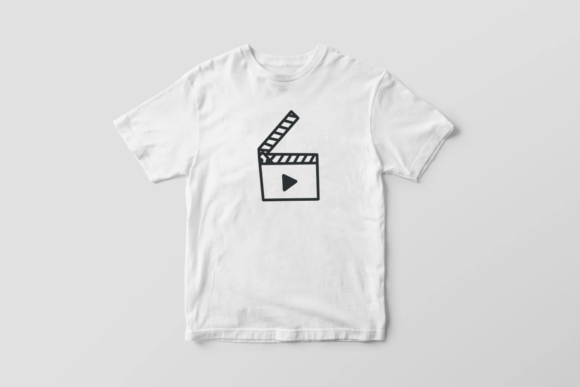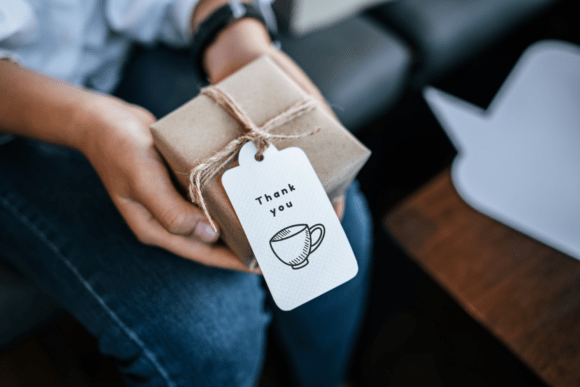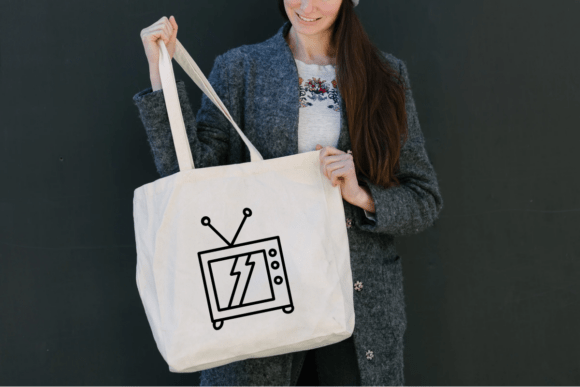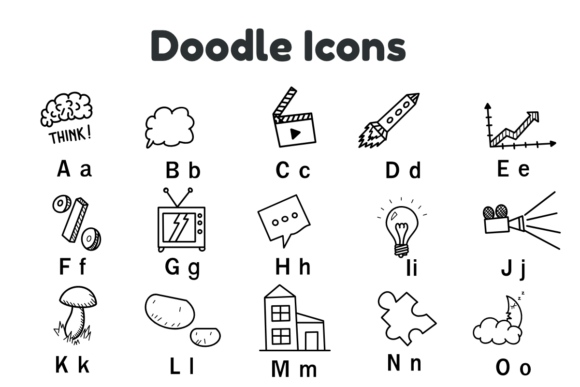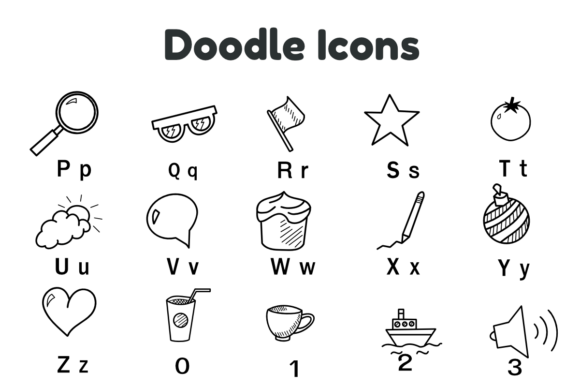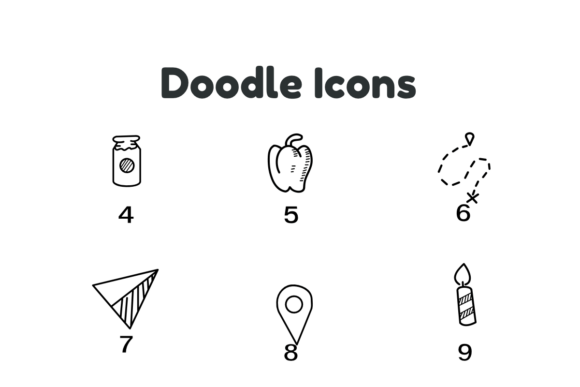
Doodle Icons Font: Add a Playful Touch to Your Designs
Are you tired of using the same old boring icons in your designs? Look no further than Doodle Icons Font, a playful dingbats font that adds a personal touch to any layout. This hand-drawn font is packed with everyday objects, from light bulbs and charts to rockets and snacks, making it perfect for infographics, educational materials, scrapbooking, and creative presentations.
What is Doodle Icons Font?
Doodle Icons Font is a unique and versatile font that offers a wide range of hand-drawn icons. Each icon is carefully crafted to add a playful and whimsical touch to your designs. The font includes a vast array of objects, such as:
- Office supplies: light bulbs, charts, and computers
- Food and snacks: donuts, pizza, and ice cream
- Travel and transportation: rockets, airplanes, and trains
- Education and learning: books, pencils, and apples
Why Use Doodle Icons Font?
There are many reasons why Doodle Icons Font is a great addition to your design toolkit. Here are just a few:
- Easy to use: Simply type a keyboard shortcut to insert an icon into your design.
- Customizable: Scale, rotate, and color the icons to fit your brand and style.
- Time-saving: No need to spend hours searching for and downloading individual icons.
- Unique: Stand out from the crowd with a playful and distinctive design.
Doodle Icons Font is ideal for a wide range of design applications, including:
- Infographics: Add visual interest to your data-driven designs.
- Educational materials: Make learning fun and engaging with playful icons.
- Scrapbooking: Add a personal touch to your digital or paper scrapbook pages.
- Creative presentations: Wow your audience with a unique and engaging design.
Here are a few tips and tricks to get the most out of Doodle Icons Font:
- Mix and match: Combine different icons to create a unique and visually interesting design.
- Experiment with color: Try out different colors and gradients to add depth and interest to your icons.
- Use in combination with other fonts: Pair Doodle Icons Font with other fonts to create a distinctive and eye-catching design.
Doodle Icons Font is a versatile and playful font that adds a personal touch to any design. With its wide range of hand-drawn icons, ease of use, and customization options, it’s perfect for designers and crafters looking to add some personality to their work. Whether you’re creating infographics, educational materials, scrapbooking, or presentations, Doodle Icons Font is a great addition to your toolkit.